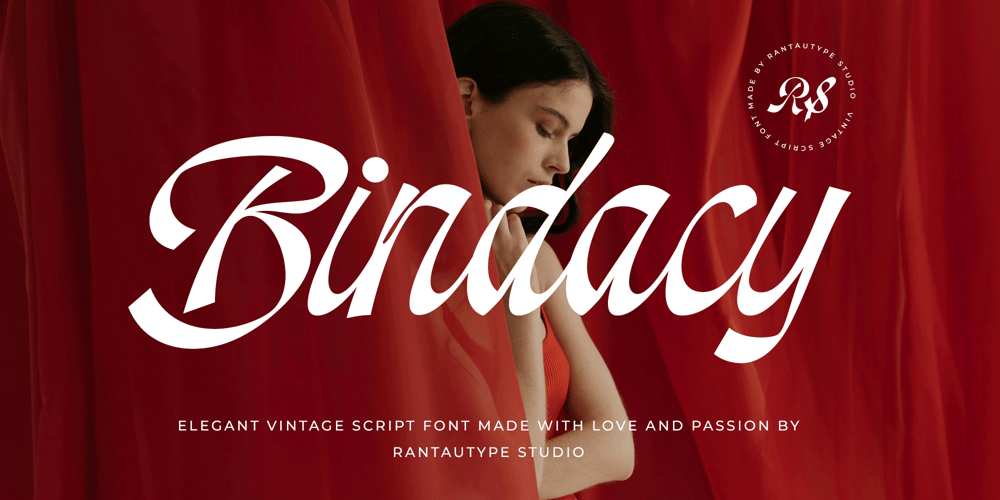
Bindacy
Bindacy font
Bindacy Font Family was designed by Yudi Pratama Chandra and published by RantauType. Bindacy contains 1 styles and family package options. Bindacy is vintage script font inspire by old fashioned poster, 90s, 70s, 60s with embrace grace and retro vibes. Bindacy come with contrast shape character and flowles shape. Bindacy is a beautiful choice for any creative endeavor, creating, modern, chic, lifestyle design such as logotype, title, cover, branding, invitations, wedding designs, display and magazine, social media posts, advertisements, printed quotes, product packaging, corporate brand, product designs, labels, photography, watermarks, special events and any other project with vintage touch.What you have: Standart Glyphs Numberial and Functional Ligature and alternate Works on PC & Mac Simple installations Accessible in Adobe Illustrator, Adobe Photoshop, Adobe InDesign, even work on Microsoft Word. Fonts include multilingual support for: Afrikaans, Albanian, Basque, Bemba, Bena, Breton, Catalan, Chiga, Cornish, Danish, Dutch, English, Estonian, Filipino, Finnish, French, Galician, German, Icelandic, Indonesian, Irish, Italian, Kinyarwanda, Luxembourgish, North, Norwegian, Portuguese, Romansh, Rombo, Rundi, Scottish, Gaelic, Sena, Shambala, Shona, Soga, Somali, Spanish, Swahili, Swedish, Swiss, German.Thank you for your purchase!Hope you enjoy with our font!